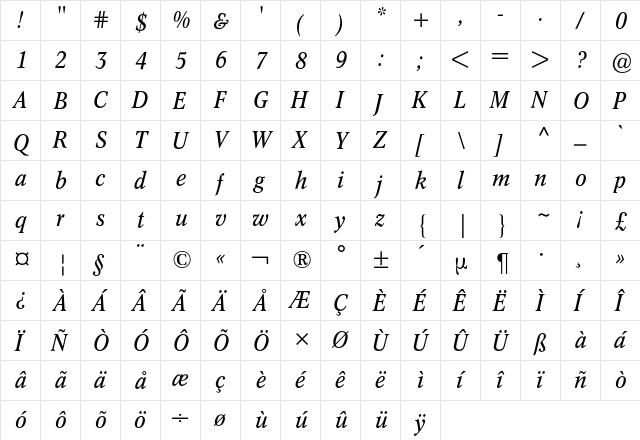
Concorde Nova BQ Regular
Design Context for Concorde Nova BQ Typeface
Concorde Nova BQ takes a measured approach to typography — its balanced proportions and neutral character make it a reliable workhorse for both digital and print work.
Pro Tip: Use Concorde Nova BQ in both headline and body roles to test its range before committing to a single application.